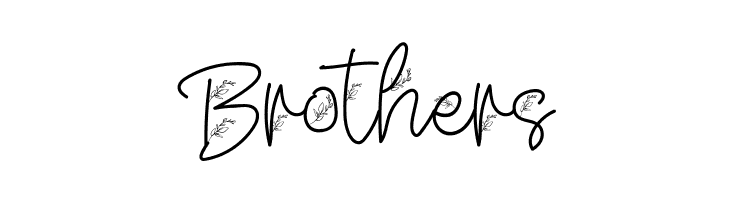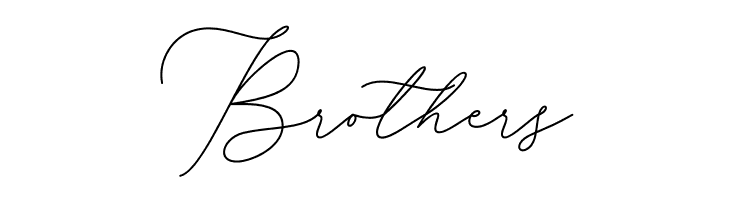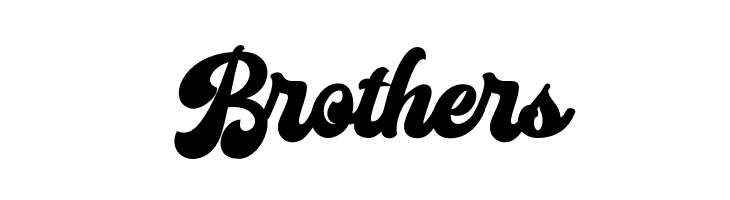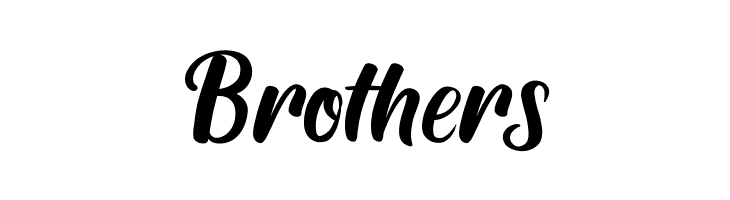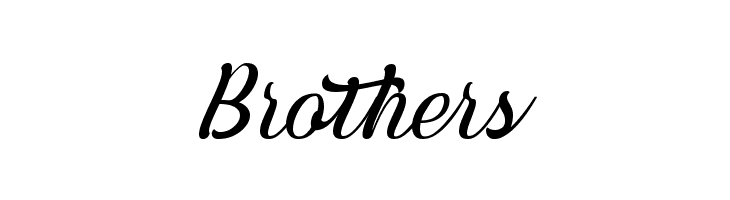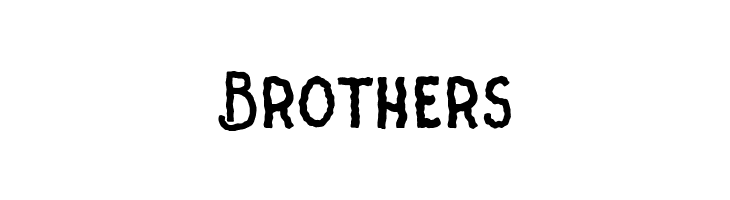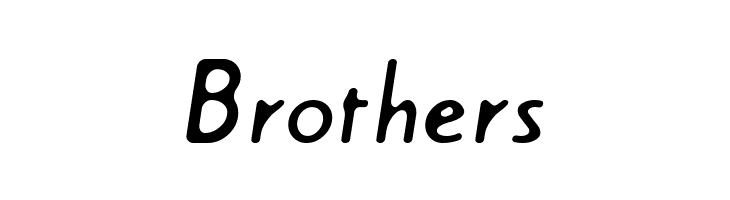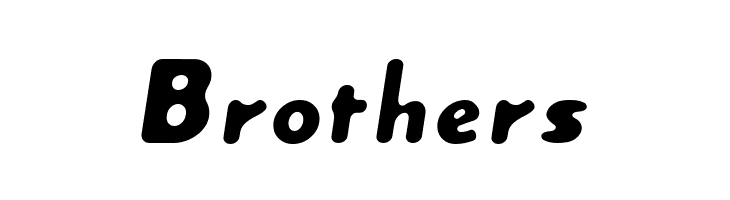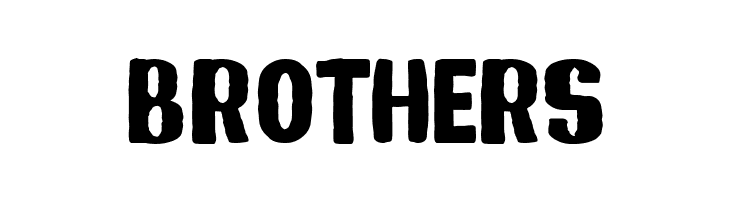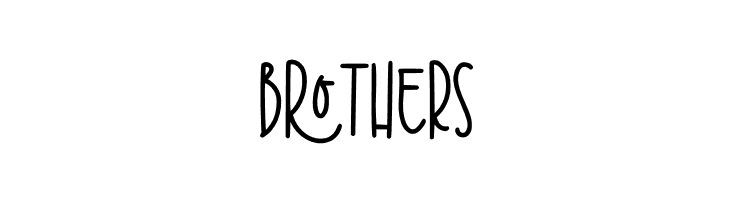
A bold, flowing script font with elegant curves and a friendly style.
A bold, textured font with a vintage, rugged style.
A playful, bold font with rounded edges and a dynamic slant.
A bold, expressive script font with interconnected, flowing characters.
A bold, flowing script font with rounded strokes and connected letters.
A bold, rounded font with a playful and friendly style.
A graceful and elegant script font with flowing, cursive strokes.
A playful, handwritten-style font with rounded characters.
Playful handwritten font with a casual style.
A lively, flowing script font with a playful, handwritten style.
A playful, whimsical font with smooth curves and elegant strokes.
A lively, cursive script font with a handwritten feel and dynamic stroke variations.
Playful handwritten font with a casual style.
A playful, casual handwritten font with rounded, smooth letterforms.
A playful, handwritten font with dynamic strokes and a personal touch.
A playful, handwritten font with dynamic strokes and artistic flair.
A playful, handwritten font with tall, slender letters and a casual style.
A playful, bold handwritten font with smooth, rounded edges.
A playful, bold handwritten font with smooth, rounded edges and a dynamic script-like style.
A graceful, cursive script font with elegant, flowing strokes.
A playful and elegant script font with smooth, flowing lines.
A playful and elegant script font with modern, flowing lines.
An elegant and flowing script font with decorative loops and swirls.
A playful, hand-drawn font with irregular, dynamic strokes and a whimsical style.
A whimsical handwritten font with leaf motifs integrated into each character.
A decorative handwritten font with leaf motifs integrated into each character.
A creative, cursive font with an artistic and flowing style.
A bold, playful script font with a handwritten feel.
A dynamic and flowing script font with elegant cursive letterforms.
A playful, handwritten font with tall, narrow letters and rounded edges.
A bold, expressive handwritten font with fluid strokes and a modern style.
A cursive, handwritten-style font with elegant, flowing strokes.
A whimsical, handwritten font with interconnected loops and curves.
A whimsical, interconnected script font with a playful and elegant style.
A hand-drawn, eerie font with a rugged, uneven texture.